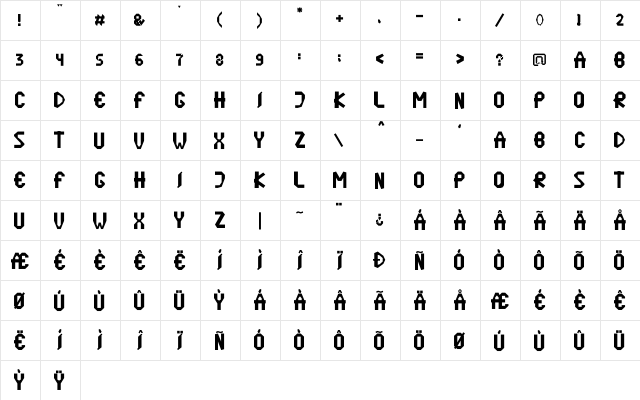
origamen Regular
Design Context for origamen Typeface
origamen offers clean, dependable letterforms without strong stylistic allegiance, making it a practical choice for designers who need flexibility.